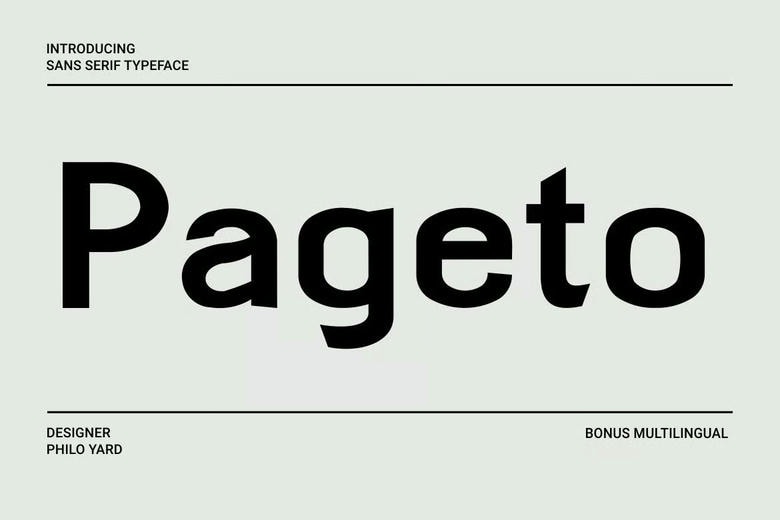
Pageto Font
Pageto is a contemporary sans serif font that is designed to be elegant and able to tell a story. It is the best choice because of its clean contrast and light ligatures, and it is used in branding, fashion magazines, and high-end packaging. Cinematic grace was also designed in this font, thus generating sophistication and aesthetic harmony in any composition.
Pageto Sans Serif Font